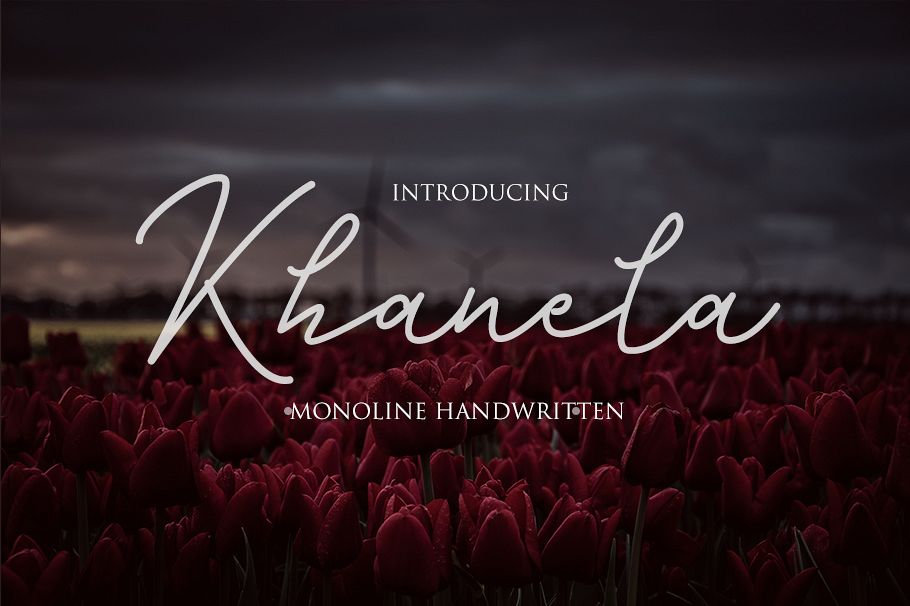
khanela
Khanela is a handwritten, casual monoline script. a clean, bouncy, beautiful font, simple and funny. can be incorporated into many designs including quotes text, wedding invitations, posters and you can create custom cards to give to your friends and family.